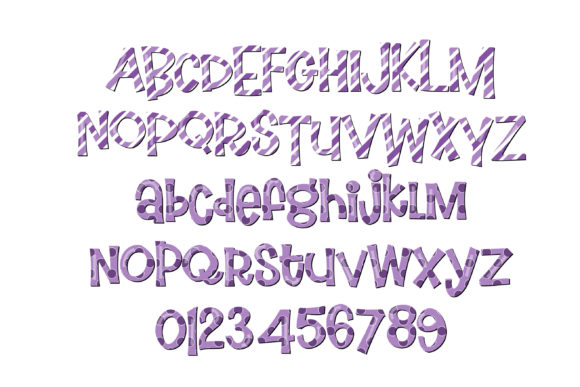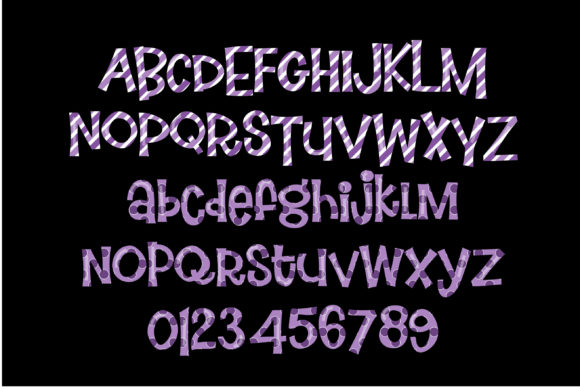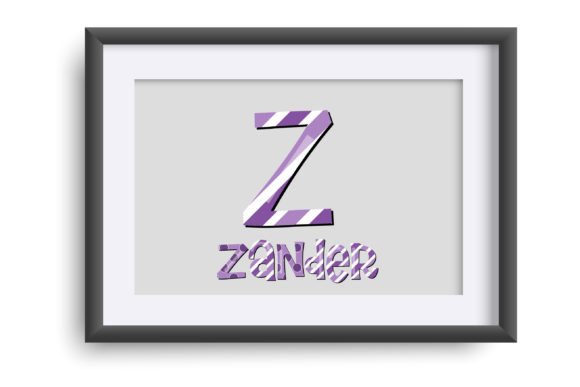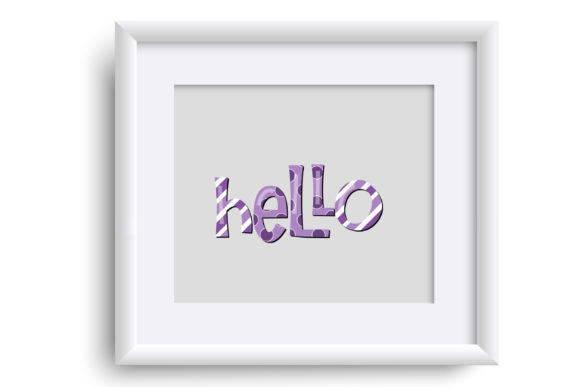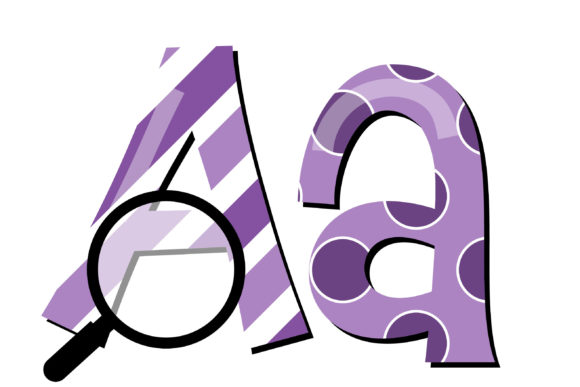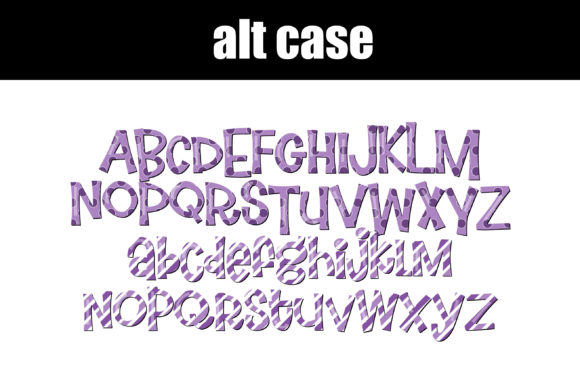
Jolly Purples Font
The Jolly Purples font is a whimsical and vibrant typeface that features playful lettering in a delightful purple color palette. With its fun and creative design, this font is perfect for adding a touch of whimsy to your projects. The font includes various ligatures, such as the double “l’s,” which add an extra element of creativity and visual interest.
In addition to the main letterforms, the Jolly Purples font also offers a second set of upper and lower alternate characters. You can access these alternate characters through your system’s character map. This feature allows you to further customize your text and create unique compositions, adding even more creativity and versatility to your designs.
Embrace the whimsical charm of the Jolly Purples font and let its playful lettering and fun ligatures inspire your creative projects. Whether you’re designing invitations, greeting cards, social media graphics, or any other visual content, this font will bring a touch of joy and creativity to your work. Explore the various alternate characters and ligatures, and enjoy the delightful purple color palette as you bring your ideas to life.